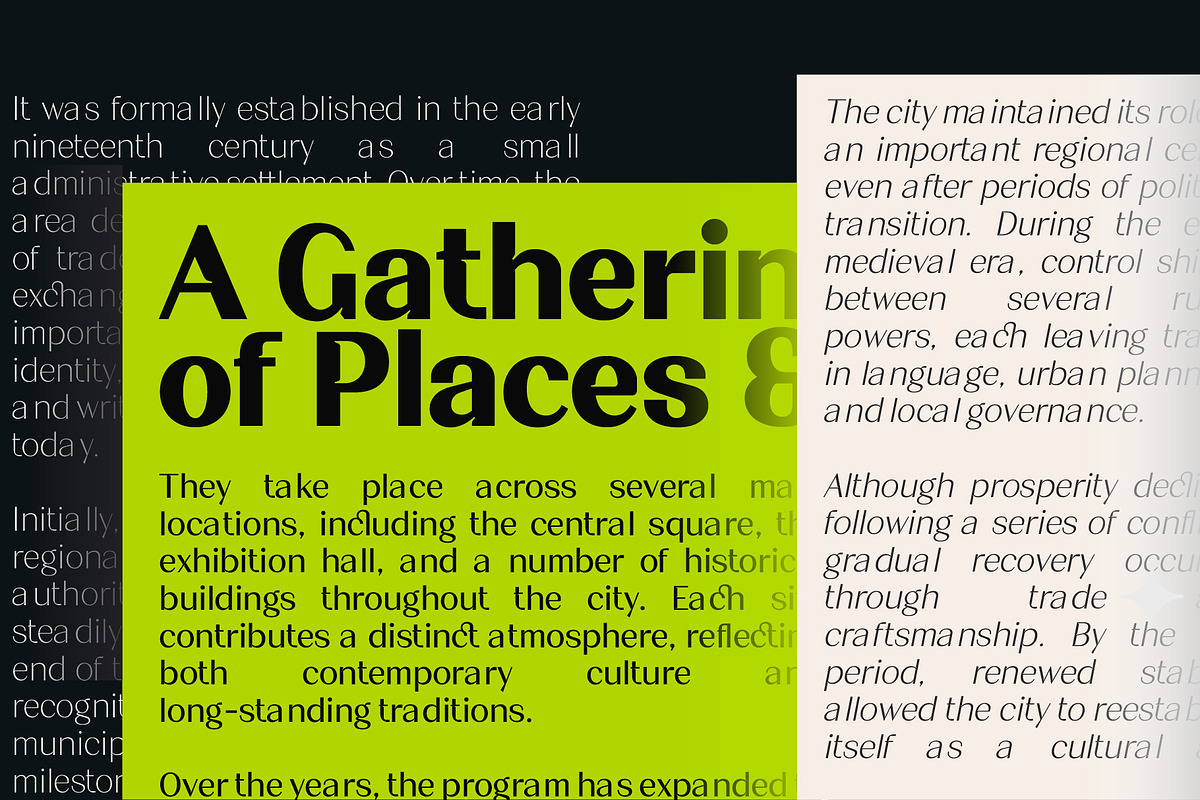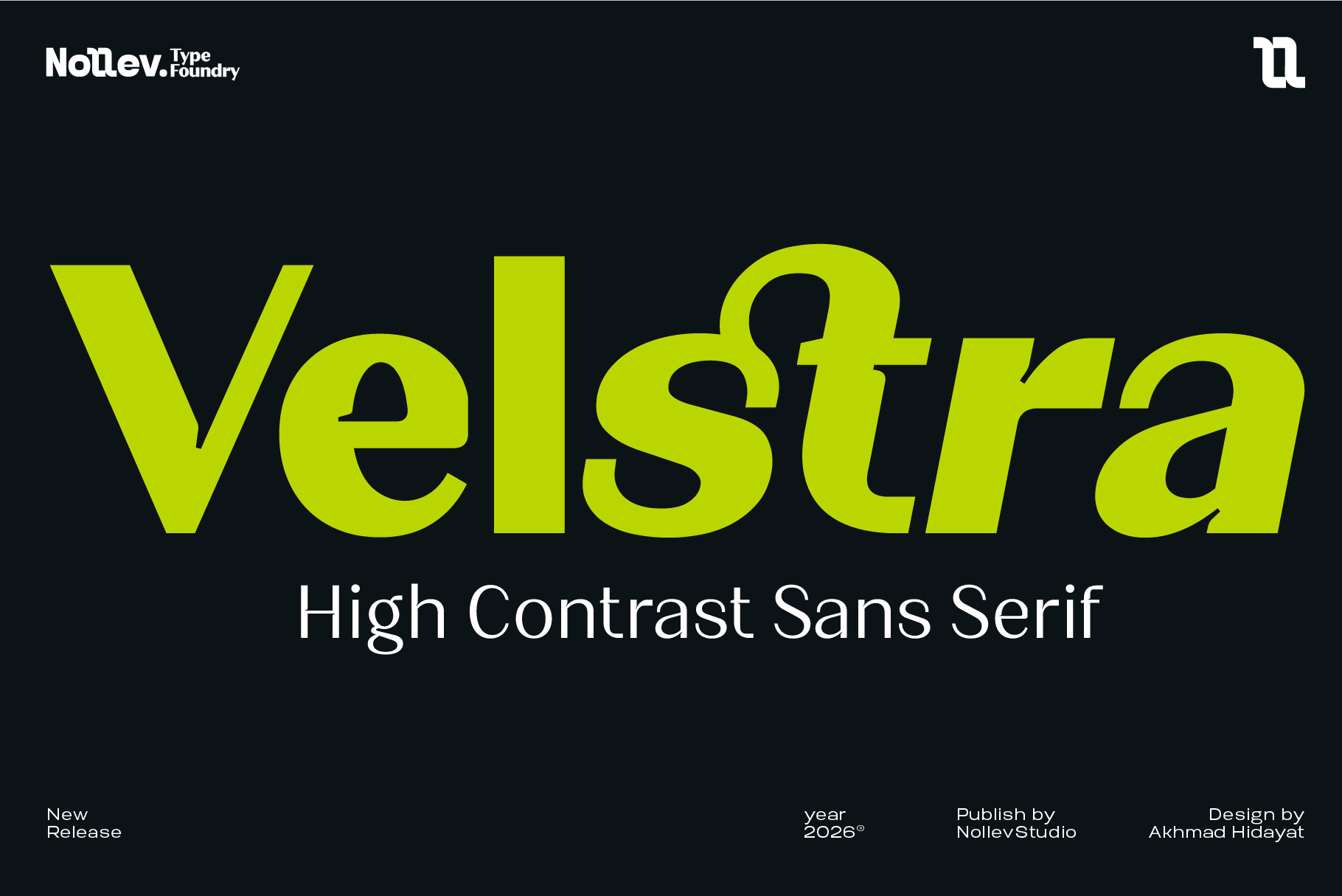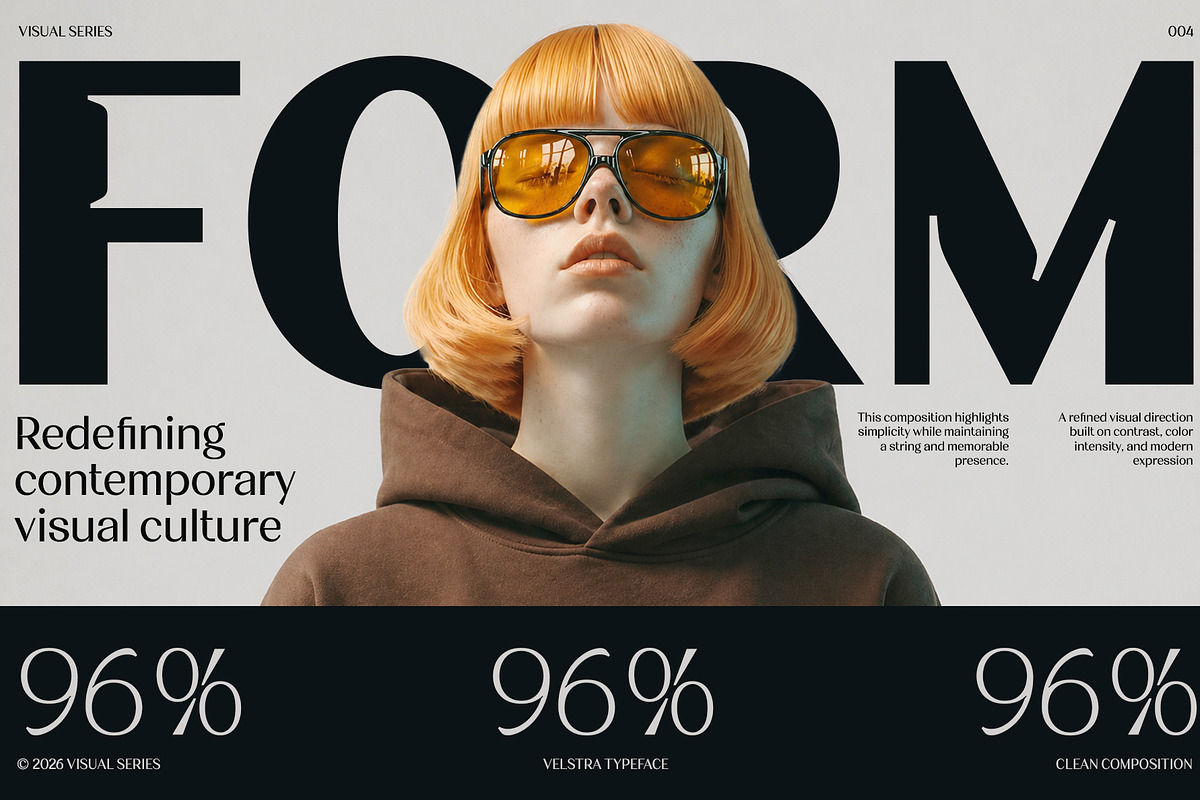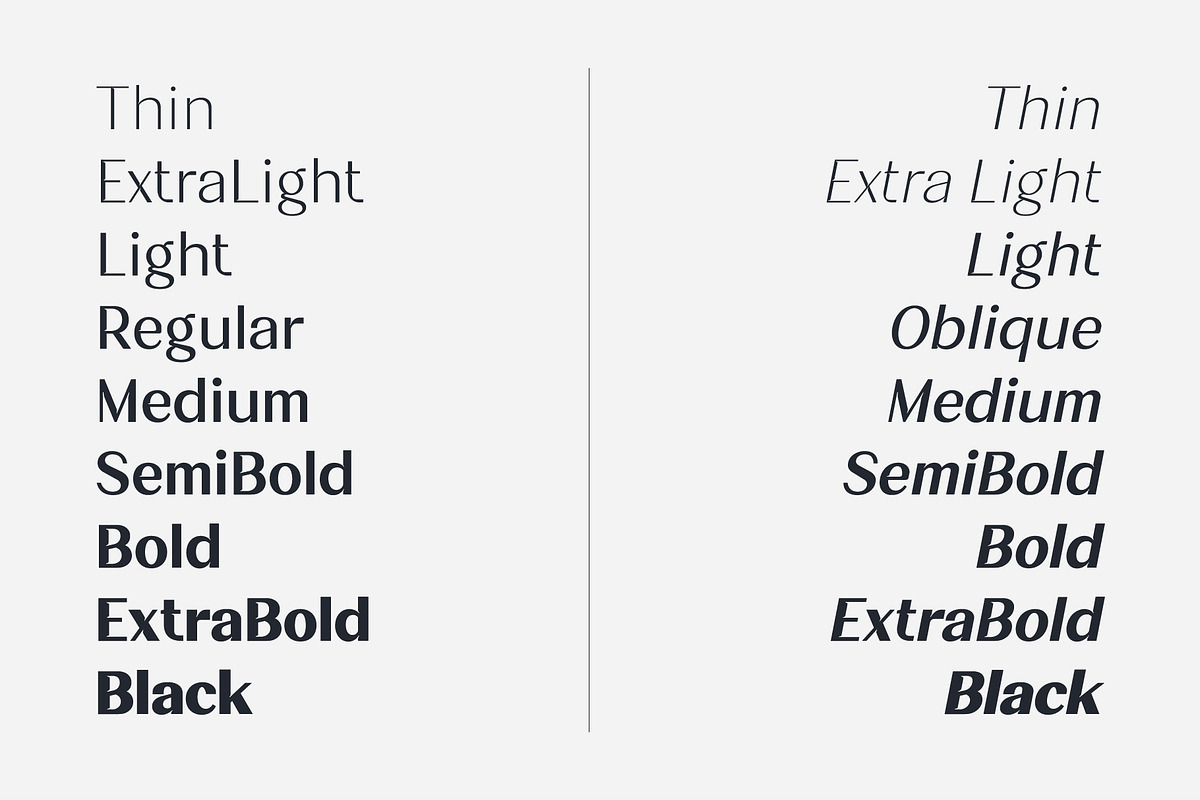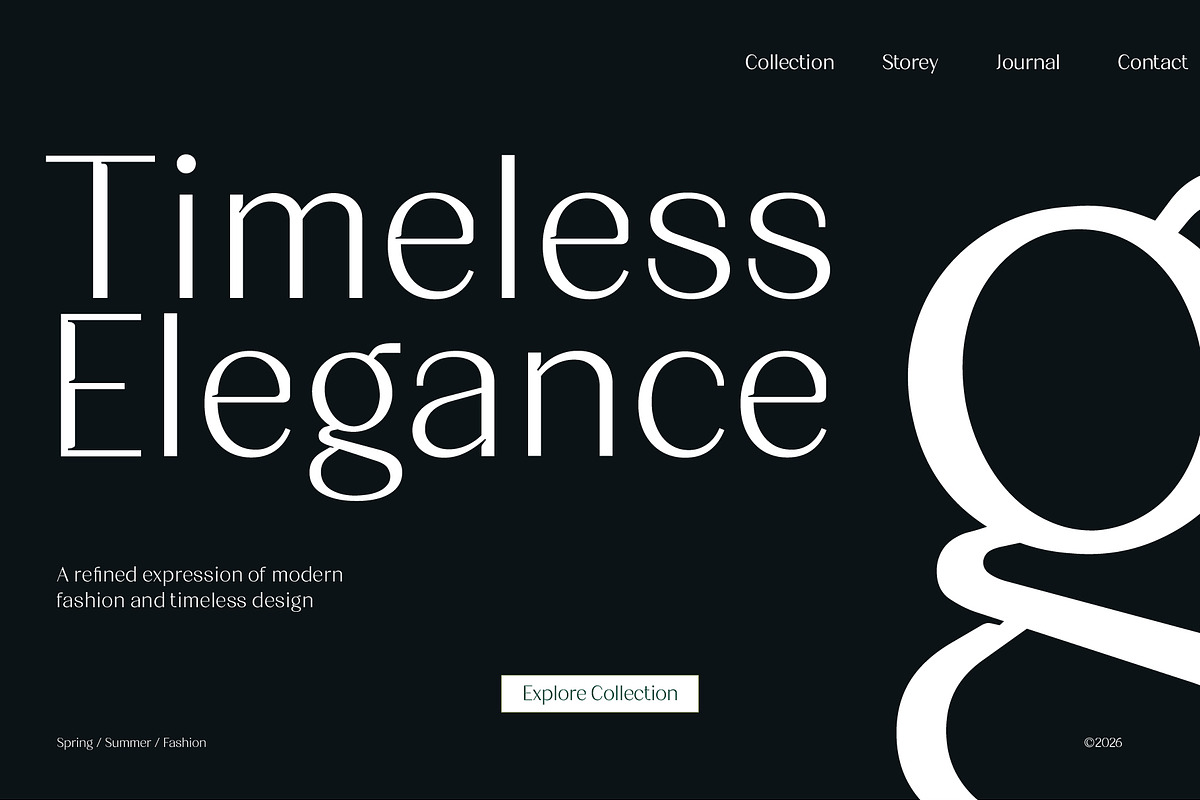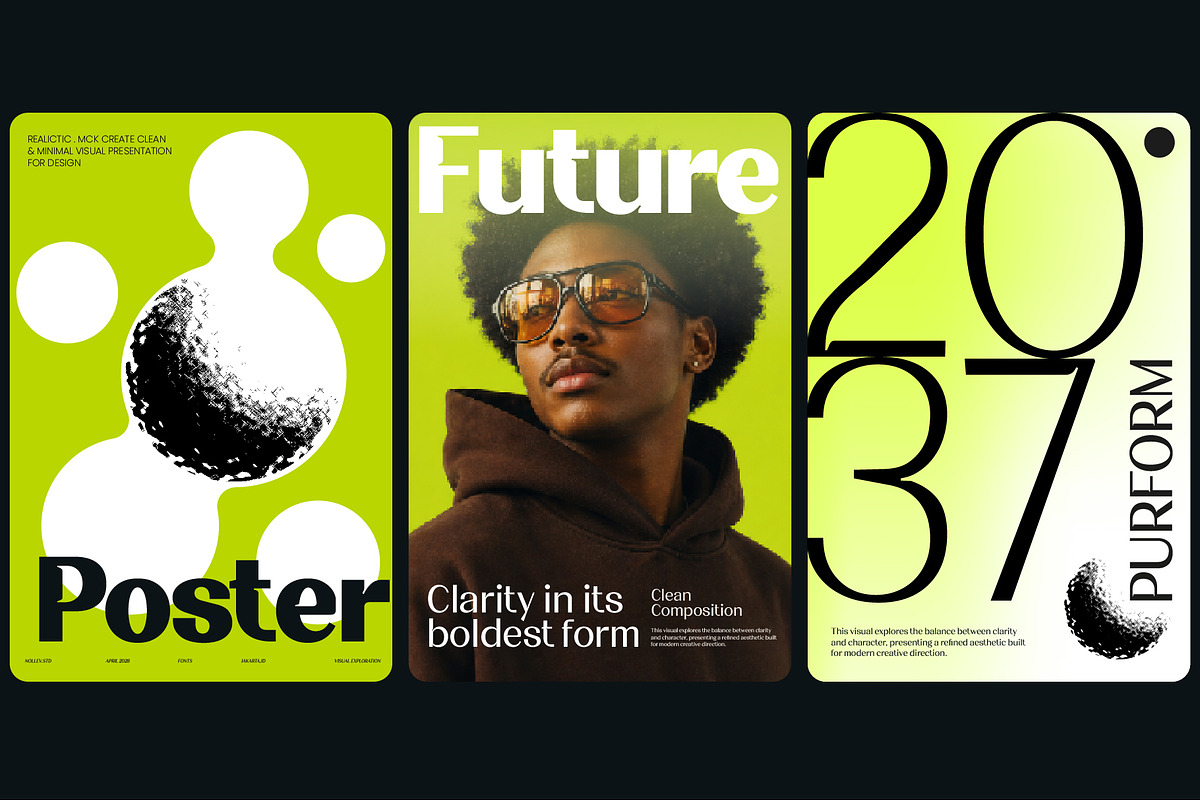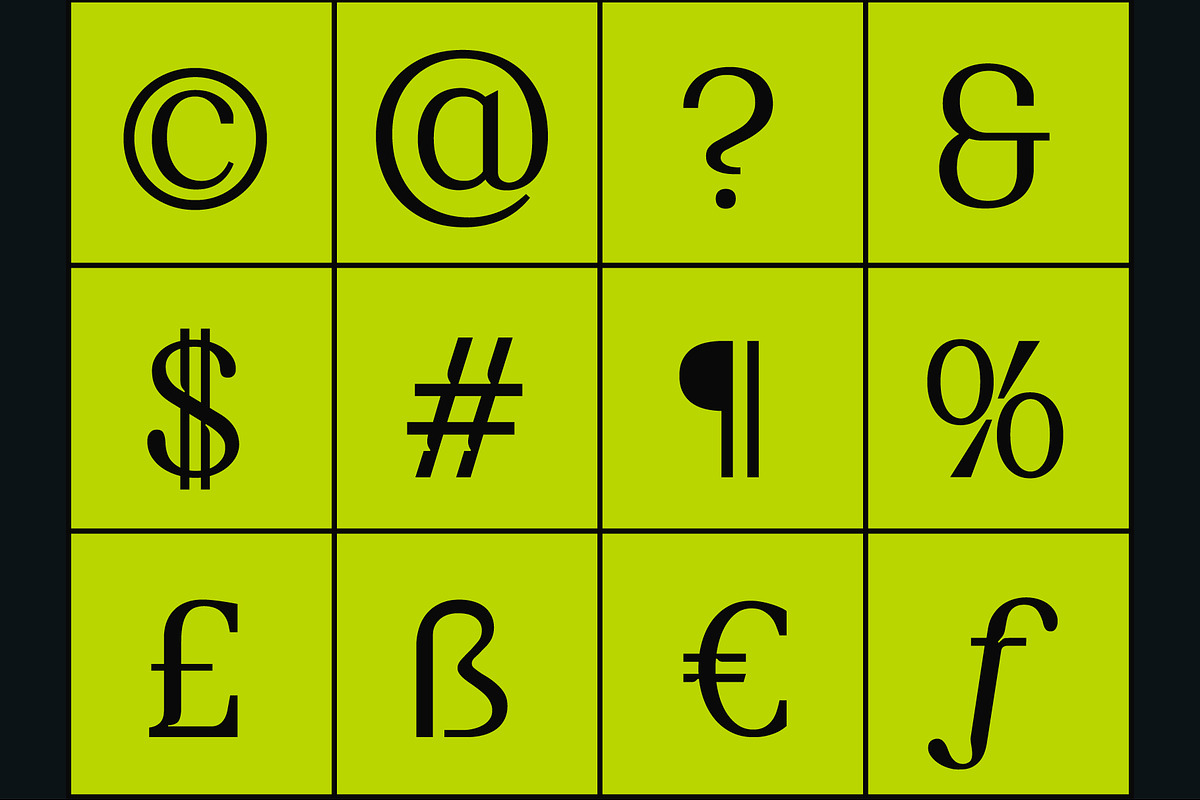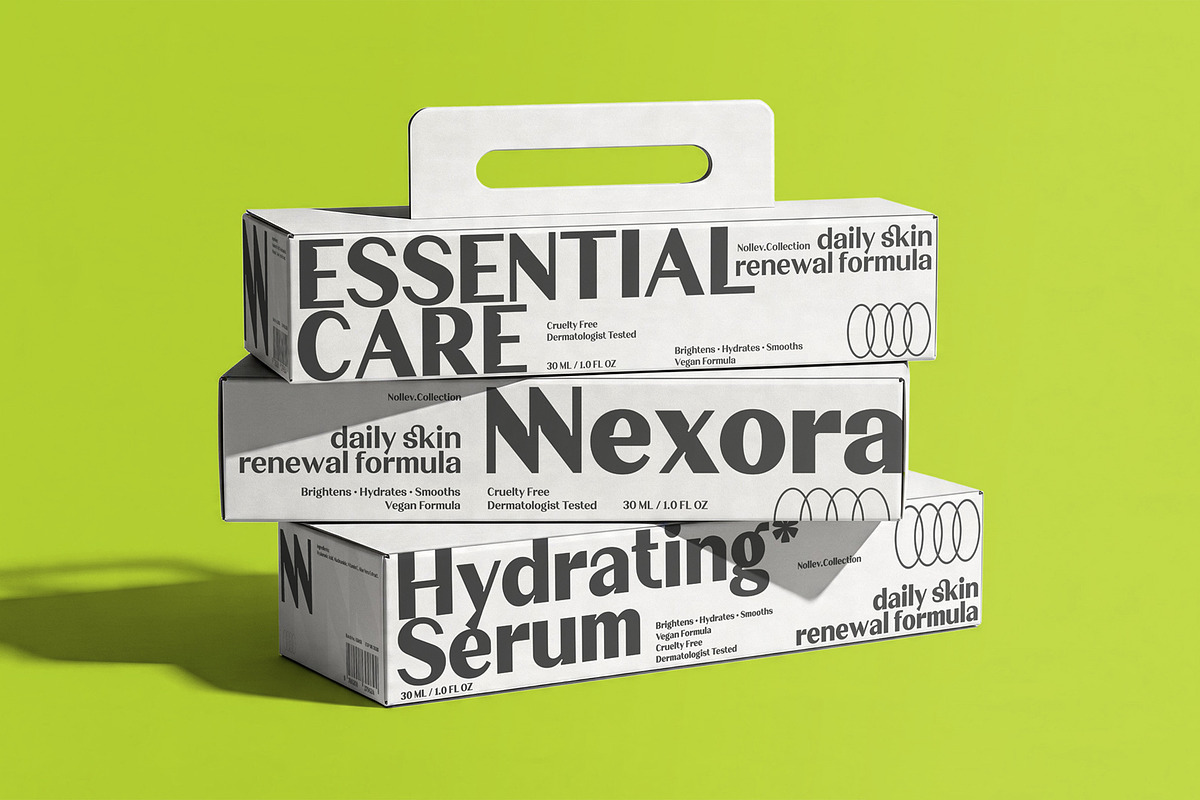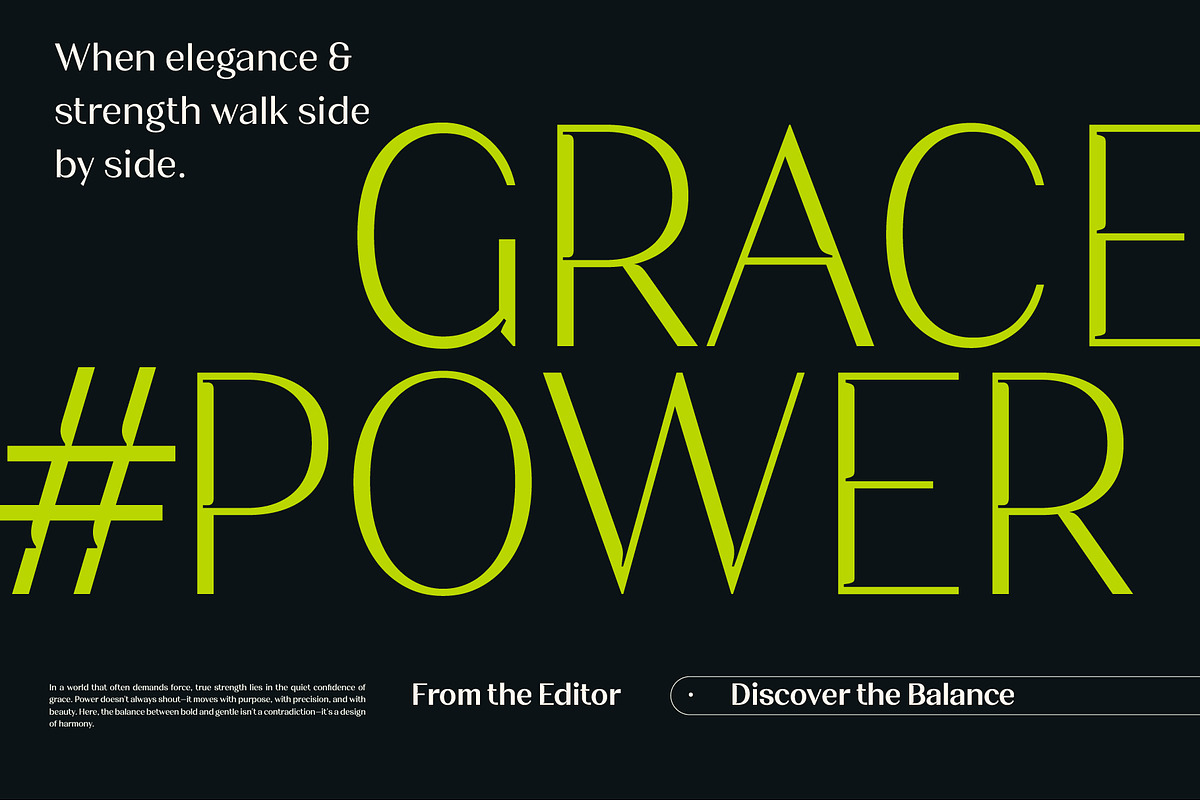
Velstra – Modern Sans Serif Font
Velstra is a contemporary high contrast sans serif typeface designed to bring bold sophistication and refined clarity to modern typography. Defined by elegant proportions, crisp transitions, and carefully balanced letterforms, every character is crafted to create a confident visual presence while maintaining exceptional readability across a wide range of applications.
Inspired by contemporary editorial aesthetics, luxury branding, modern architecture, and refined visual design, Velstra combines expressive contrast with timeless simplicity. The result is a versatile typeface that feels equally at home in striking headlines, sophisticated branding systems, and polished digital experiences.
Whether you're designing logos, visual identities, editorial layouts, fashion campaigns, luxury packaging, magazines, websites, advertising, presentations, or social media content, Velstra helps every project communicate with confidence, precision, and contemporary elegance.
Velstra — a contemporary high contrast sans serif family featuring elegant proportions, refined contrast, and versatile styles for impactful typography.
18 Font Styles 9 Upright & 9 Italic
Ligatures & Stylistic Alternates
Uppercase, Lowercase, Numerals, Punctuation & Symbols
Designed for creatives who value precision, versatility, and refined aesthetics, Velstra delivers a complete typographic system for contemporary branding and editorial design—bringing together expressive contrast, modern elegance, and timeless functionality in every project.